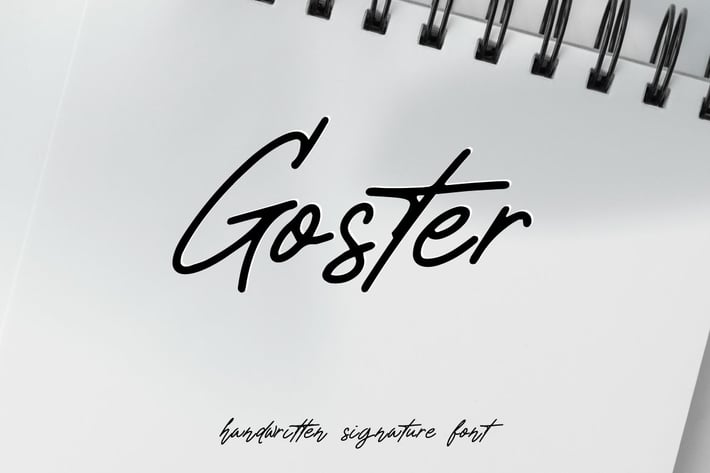
Goster - Signature Handwritten Font
Hello! Goster is a clean minimalist handwritten font.
Goster can be used in any works such as flyer, book title, advertisement, social media content, logo and many more.